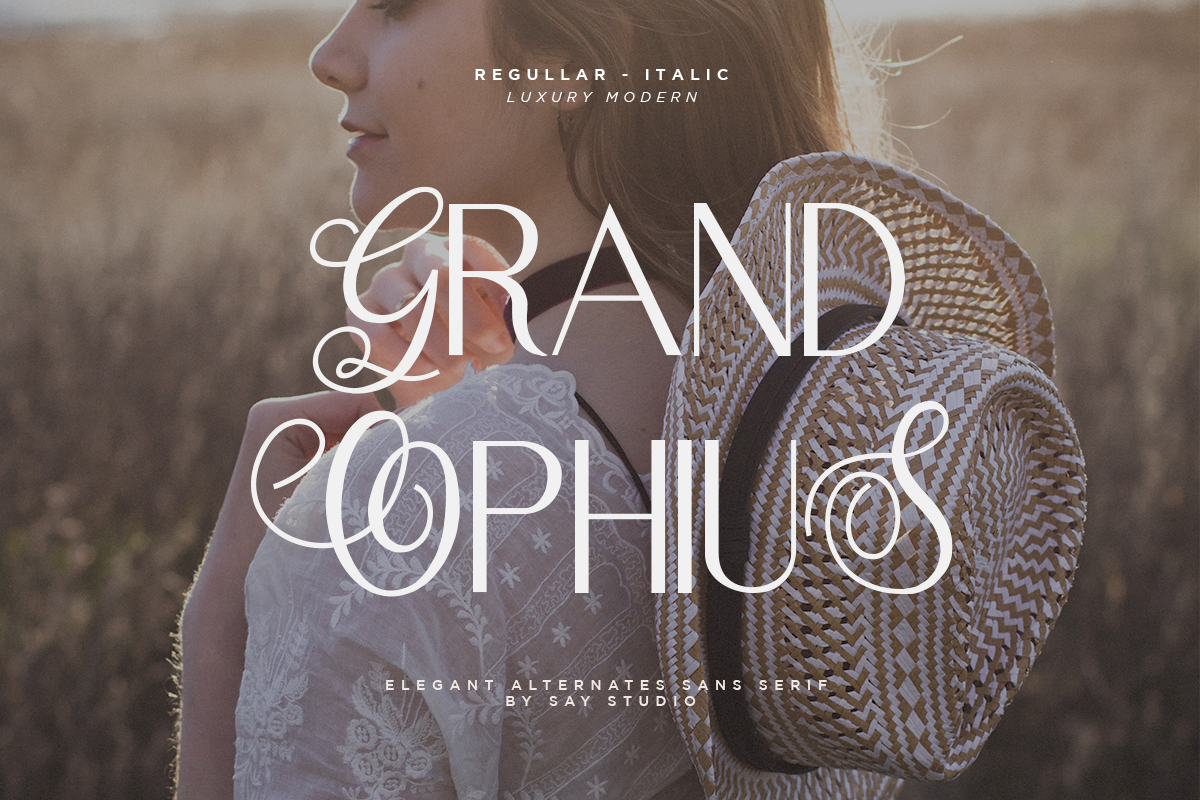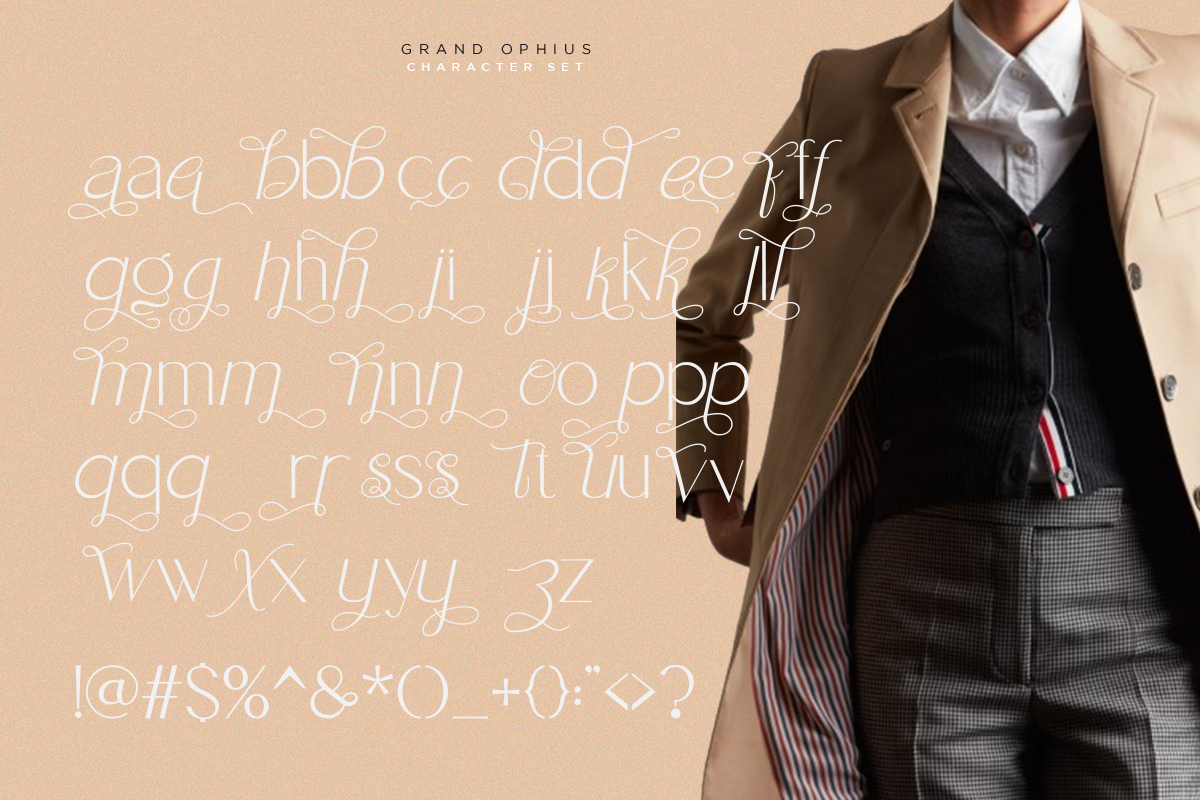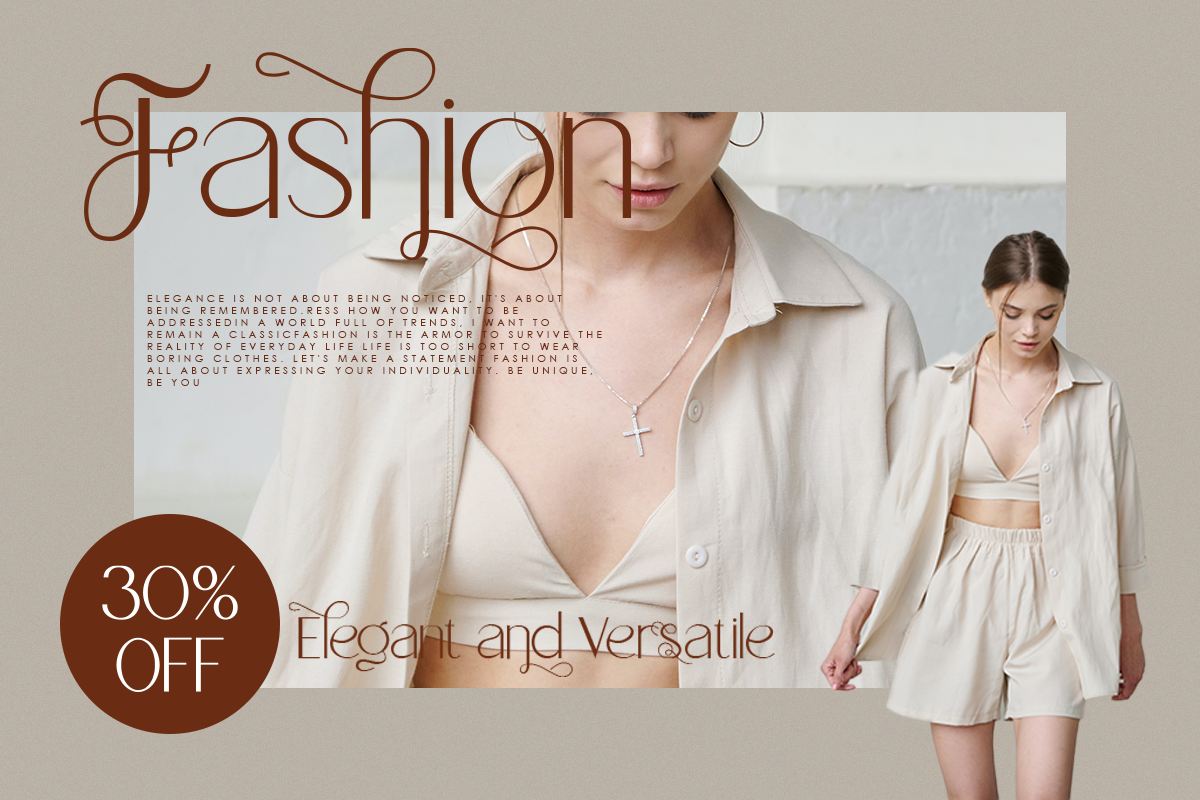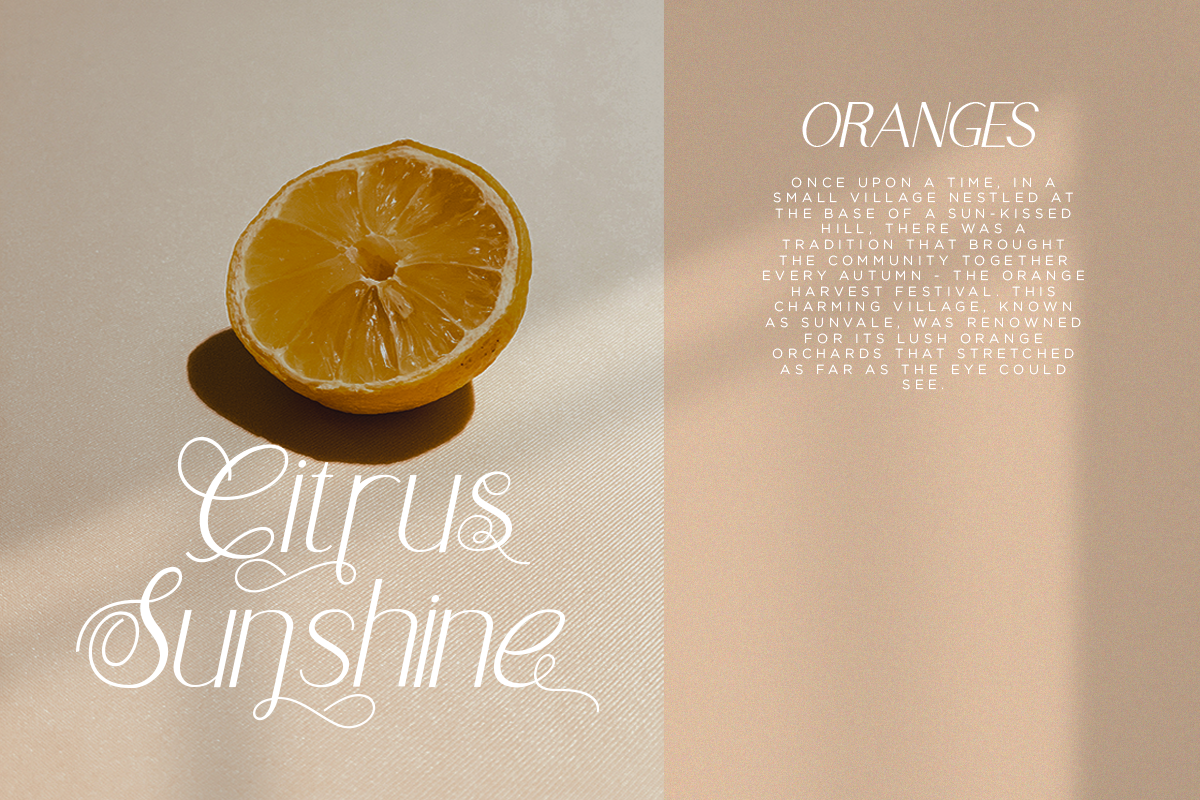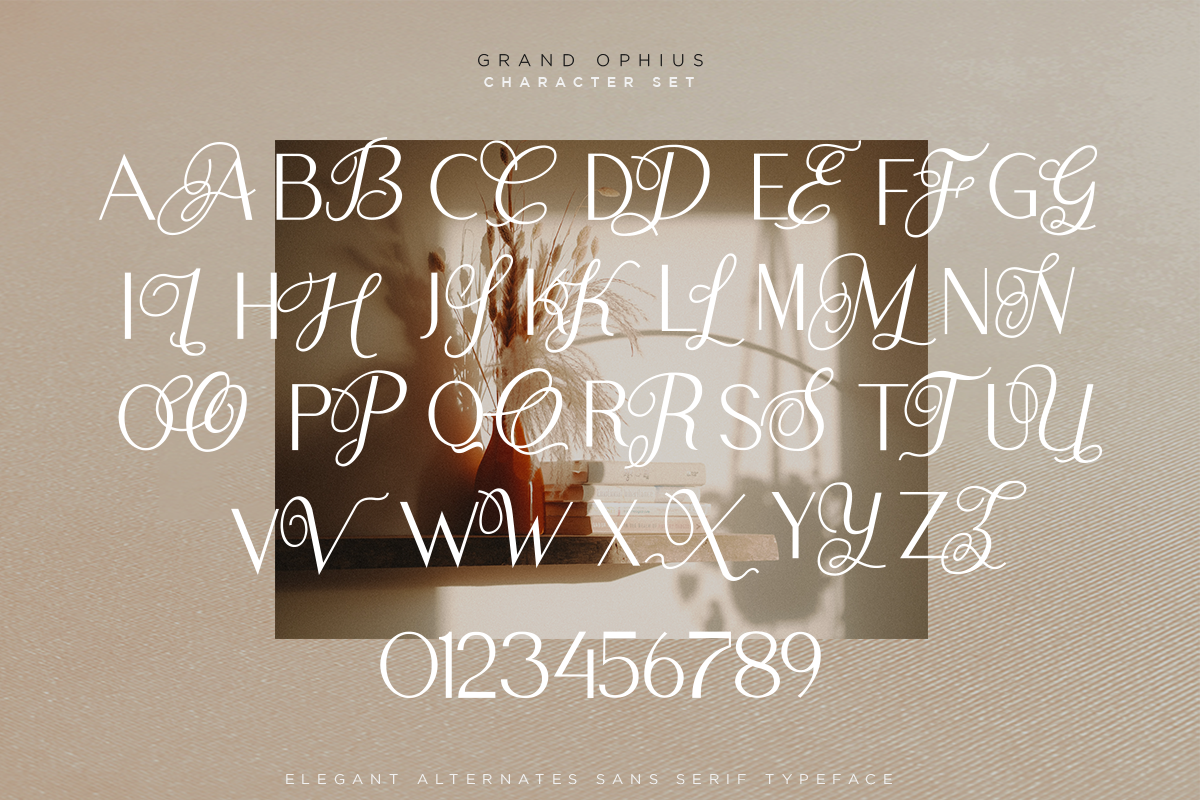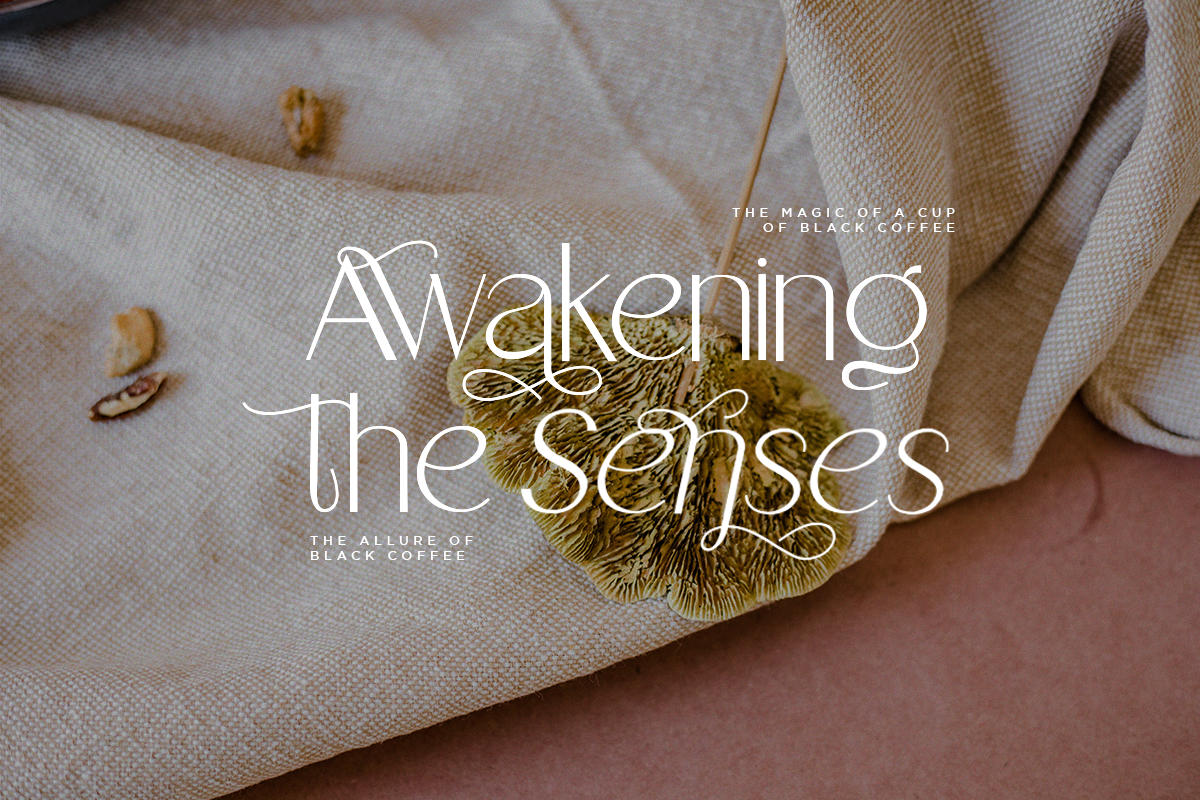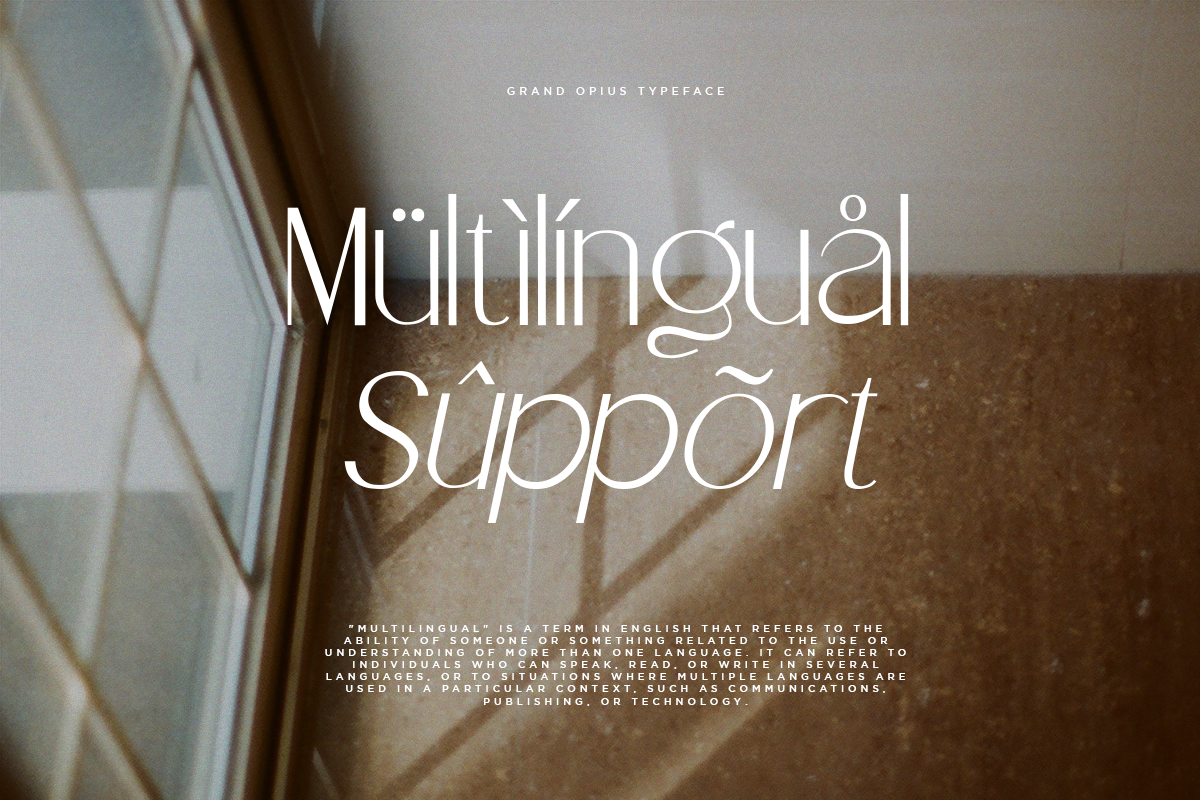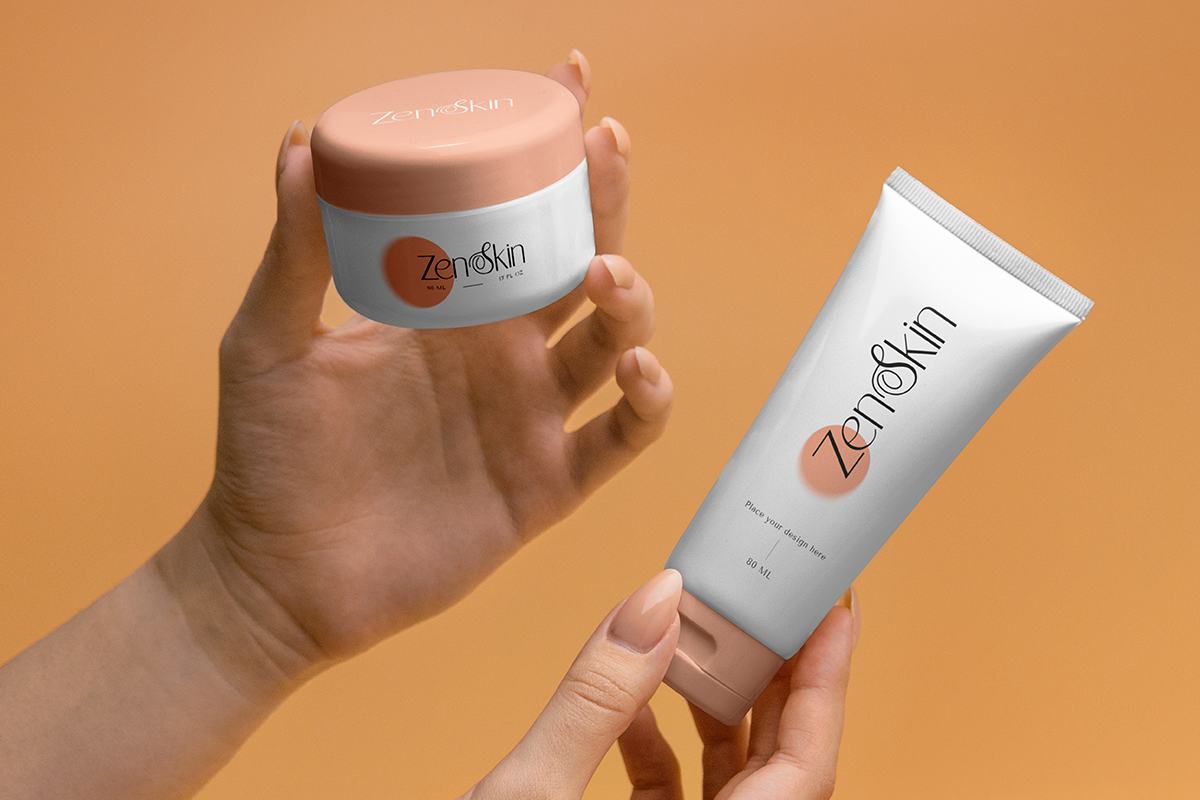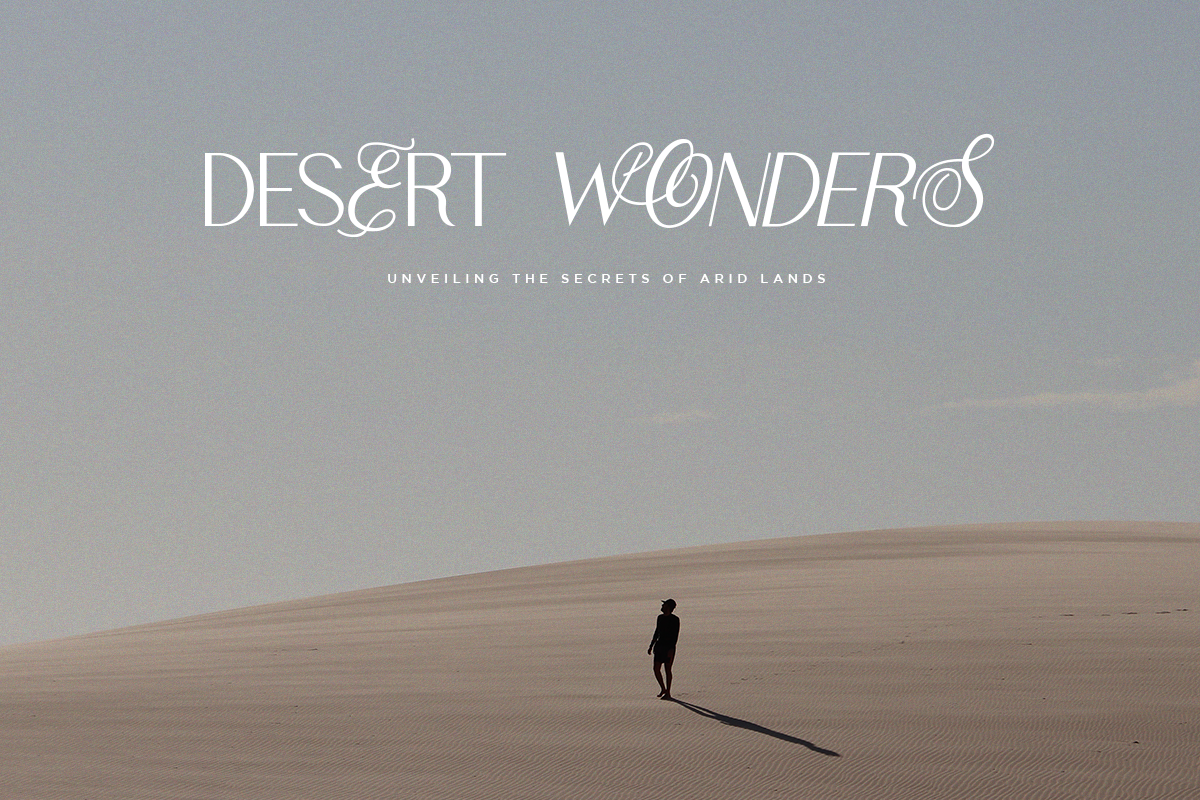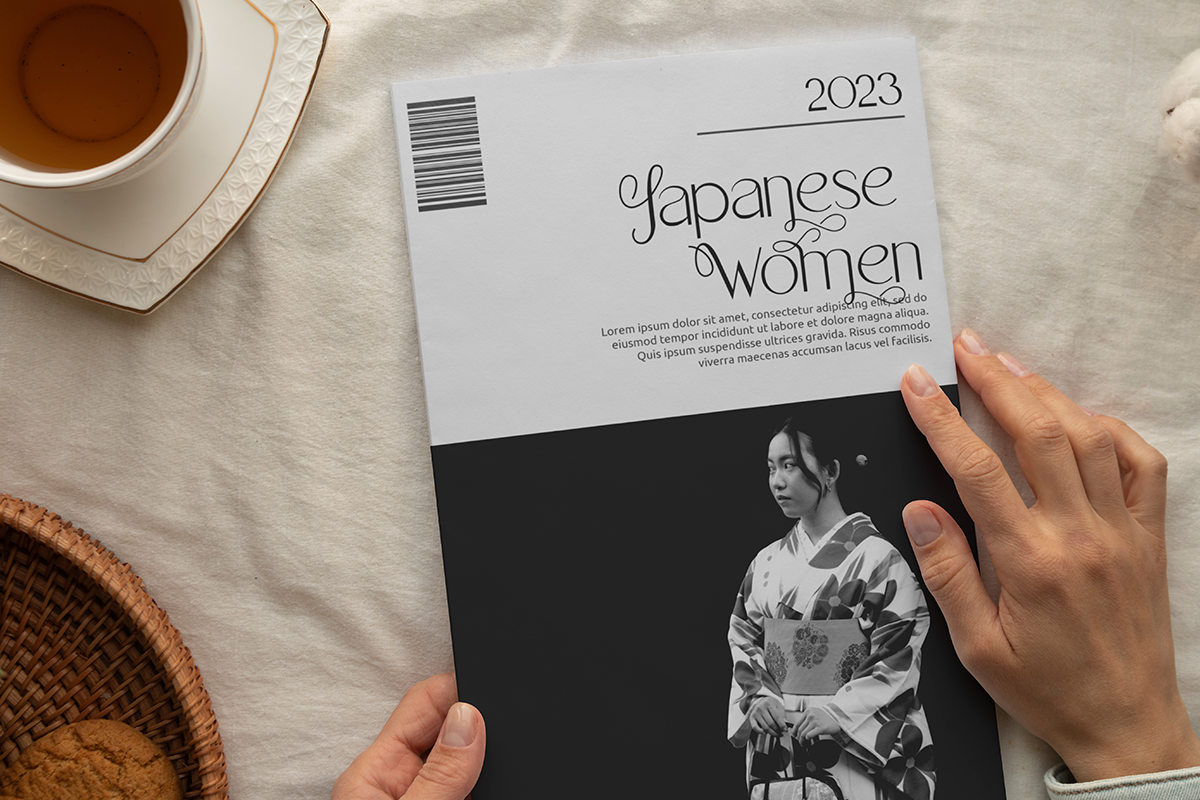
Grand Ophius - Elegant Sans Font
Grand Ophius is a modern and elegant display serif fonts that had a sleek and luxury feel. This font is perfectly into classy moodboards and logos projects. Grand Ophius come with a unique all caps and many alternates and ligature plus numbers, punctuation & multilingual letters.
Inspired by fashion magazines and modern typography, Grand Ophius offers elegance that you can use in your designs, such as posters, flyers, stories, magazines, blogs, editorials, titles, displays, and more. It is a classy font that you can combine withand 60+ alternates.